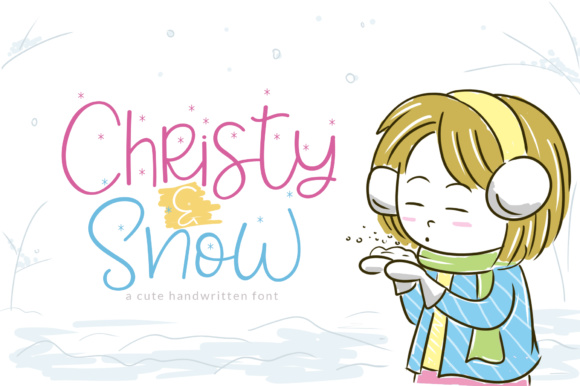
Christy & Snow Font: The Ultimate Cute and Girly Display Script
Are you a designer or crafter looking for a font that adds a touch of whimsy and playfulness to your projects? Look no further than Christy & Snow Font! This super cutesy, girly display script is perfect for creating eye-catching titles, headings, and graphics that are sure to delight. In this article, we’ll take a closer look at Christy & Snow Font, its features, and how you can use it to elevate your designs.
What is Christy & Snow Font?
Christy & Snow Font is a display script font that comes in two variations: Regular and Snow. The Regular version is a beautiful, flowing script that is perfect for creating elegant and sophisticated designs. However, it’s the Snow version that really sets this font apart. The Snow version features small snowflake embellishments on each letter, adding a touch of magic and wonder to your designs.
Key Features of Christy & Snow Font
- Two Variations: Christy & Snow Font comes in two variations: Regular and Snow. The Regular version is perfect for creating elegant designs, while the Snow version adds a touch of whimsy and playfulness.
- Cute and Girly: Christy & Snow Font is a super cutesy, girly display script that is perfect for creating designs that are feminine and playful.
- Snowflake Embellishments: The Snow version of Christy & Snow Font features small snowflake embellishments on each letter, adding a touch of magic and wonder to your designs.
Uses for Christy & Snow Font
Christy & Snow Font is a versatile font that can be used for a variety of design projects, including:
- Signs and Banners: Christy & Snow Font is perfect for creating eye-catching signs and banners for events, parties, and businesses.
- Social Media Graphics: Use Christy & Snow Font to create cute and engaging social media graphics that are sure to delight your followers.
- Party Invitations: Christy & Snow Font is perfect for creating party invitations, especially for winter or holiday-themed parties.
- Branding and Packaging: Use Christy & Snow Font to add a touch of whimsy and playfulness to your branding and packaging.
Tips for Using Christy & Snow Font
Here are a few tips for using Christy & Snow Font:
- Use it Sparingly: Christy & Snow Font is a bold and playful font, so use it sparingly to avoid overwhelming your design.
- Pair it with Other Fonts: Pair Christy & Snow Font with other fonts to create a unique and interesting design.
- Experiment with Colors: Christy & Snow Font looks great in a variety of colors, so experiment with different colors to find the one that works best for your design.
Christy & Snow Font is a super cutesy, girly display script that is perfect for designers and crafters looking to add a touch of whimsy and playfulness to their projects. With its two variations, Regular and Snow, Christy & Snow Font offers a range of design possibilities. Whether you’re creating signs and banners, social media graphics, party invitations, or branding and packaging, Christy & Snow Font is sure to delight. So why not give it a try and see what amazing designs you can create?